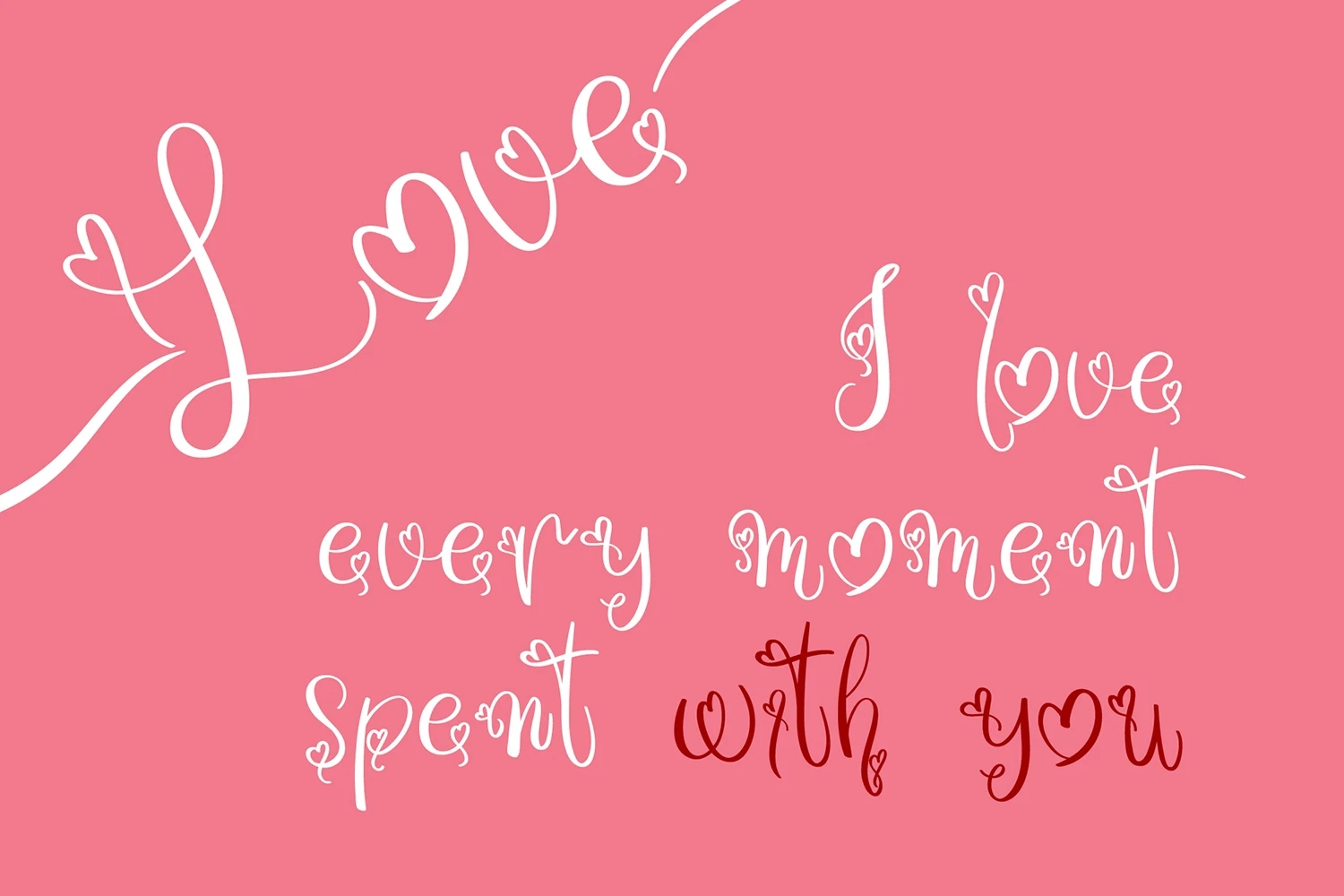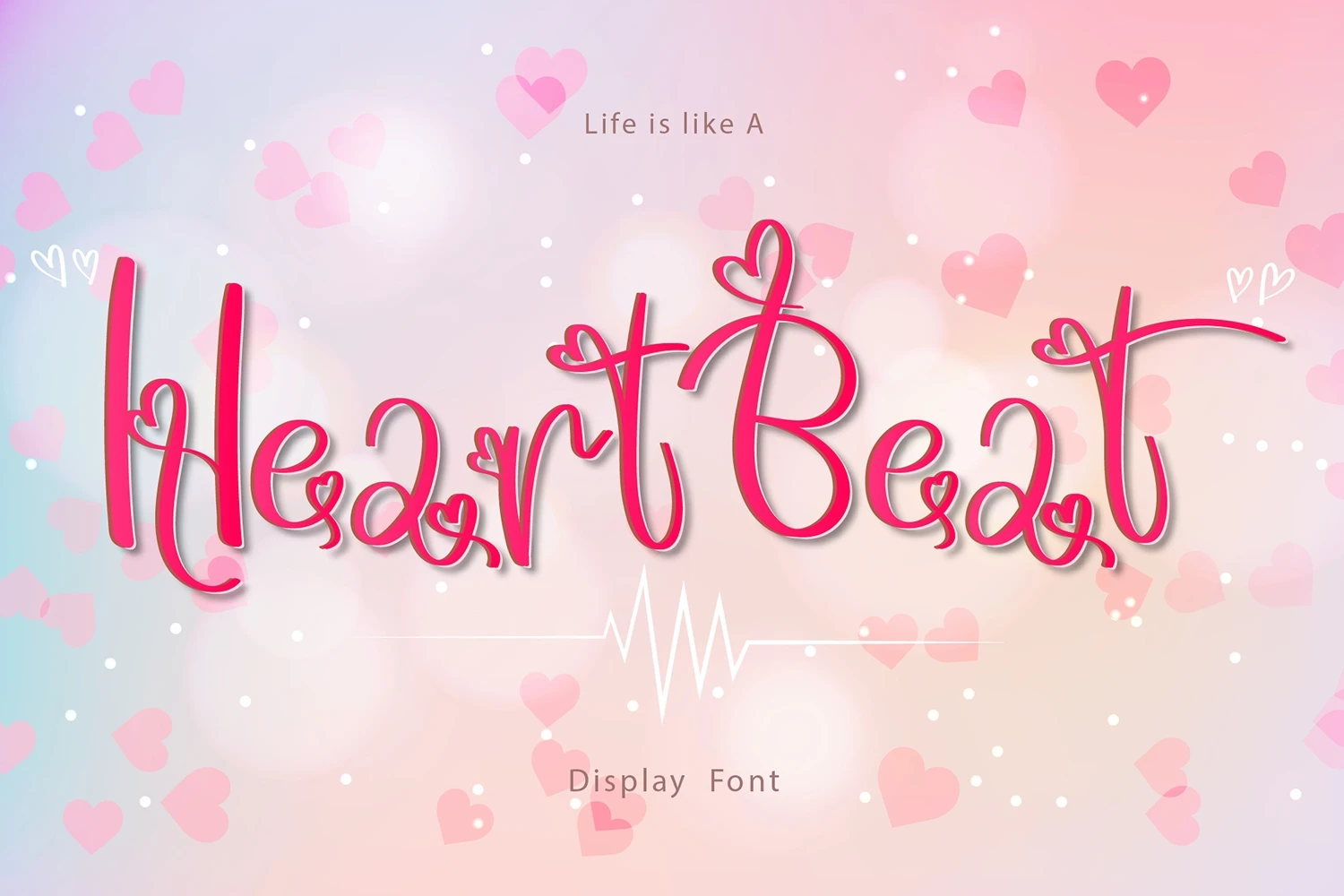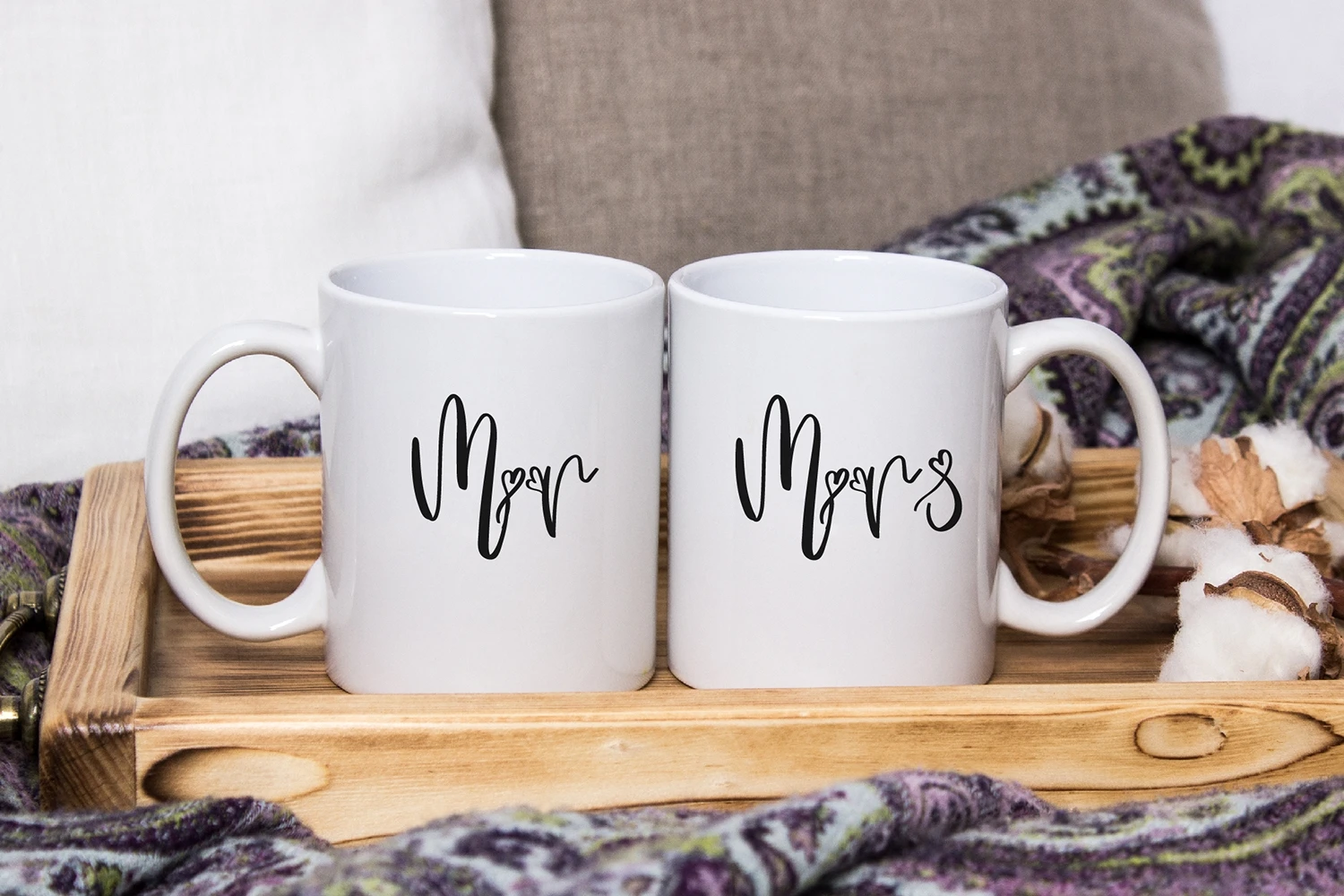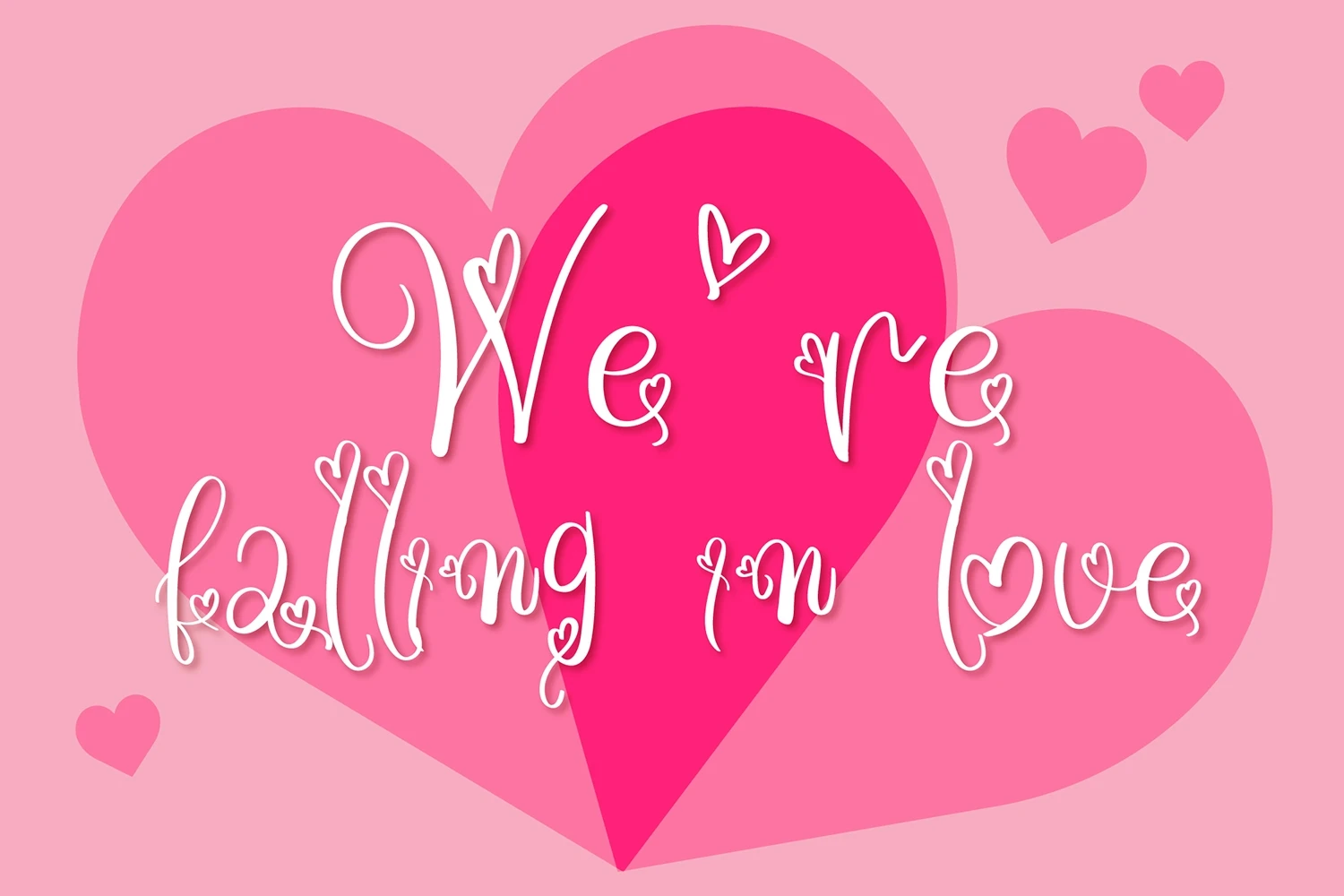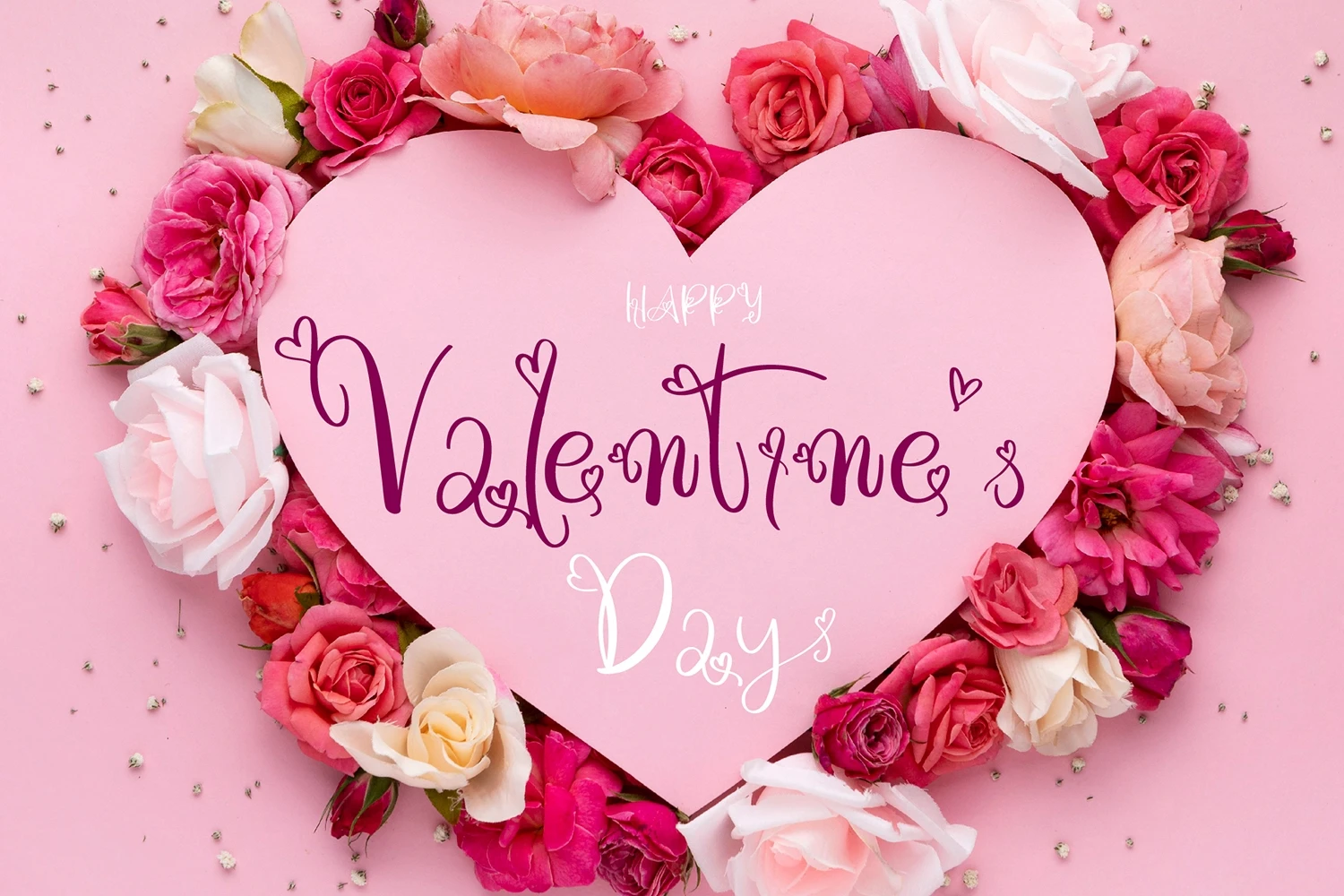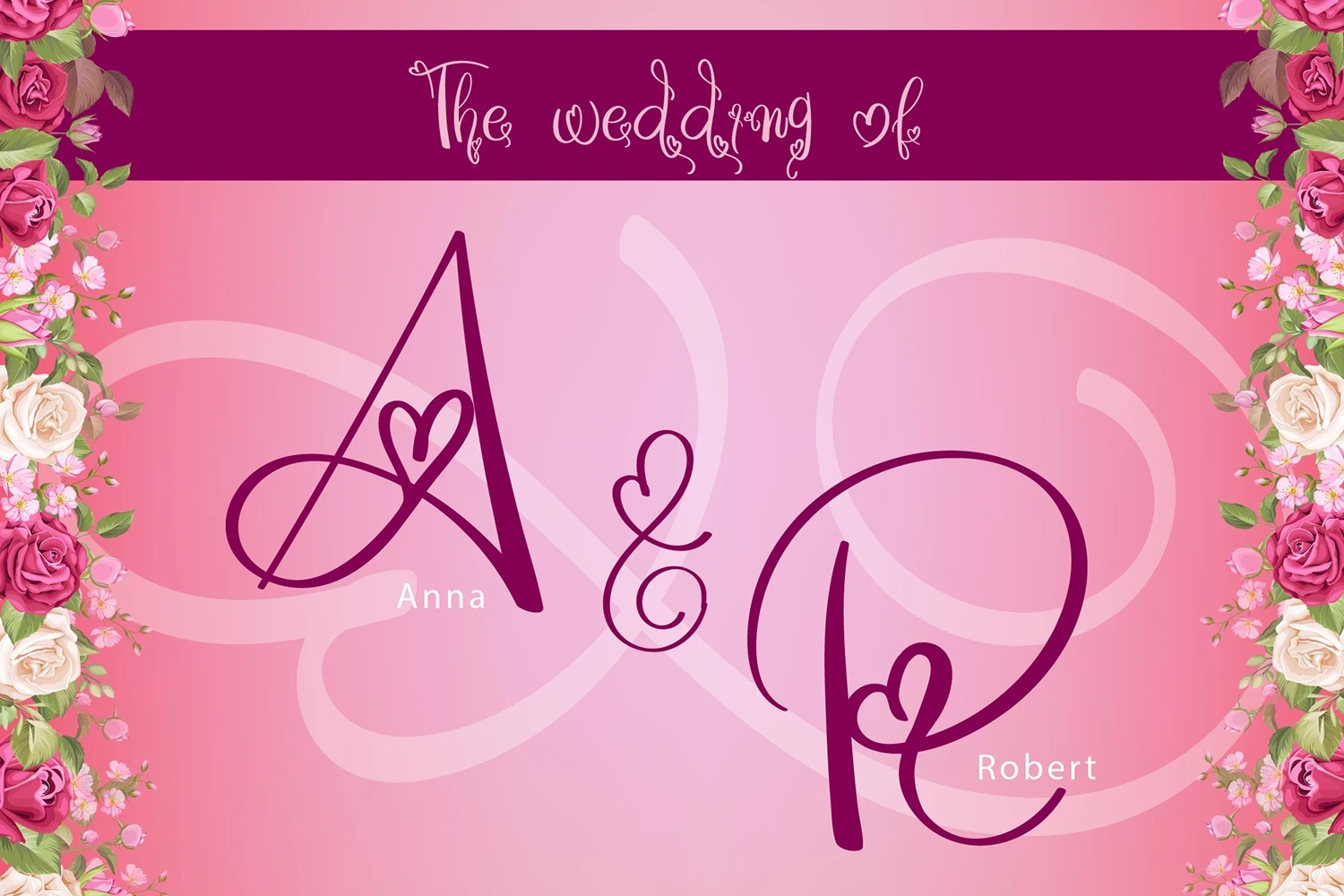
Heart Beat is an incredibly dreamy and romantic handwritten font, featuring lovely heart ornaments. It is ideal for Valentine theme greeting cards and for any crafting project that requires a sweet touch.